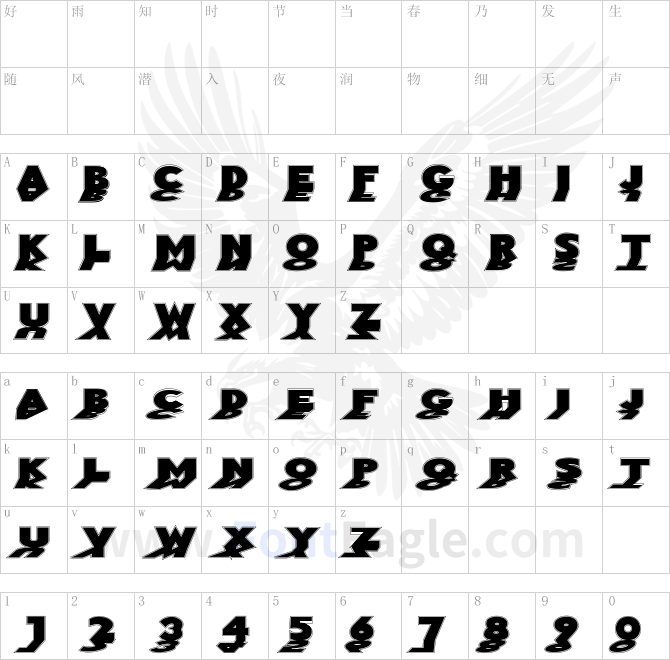
MirrorblacKOutline is a great font, widely used in graphic design, single-page menu design, poster design and other fields, and is deeply loved by designers.MirrorblacKOutline download.